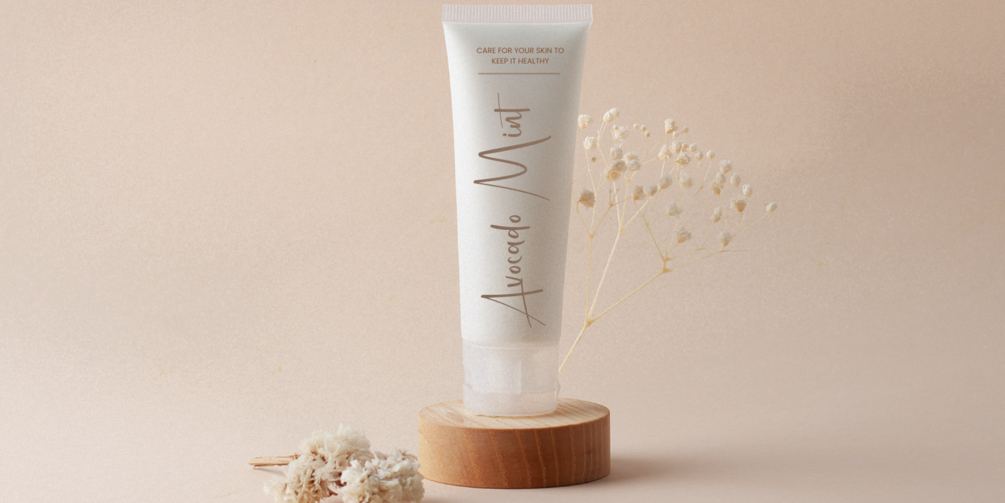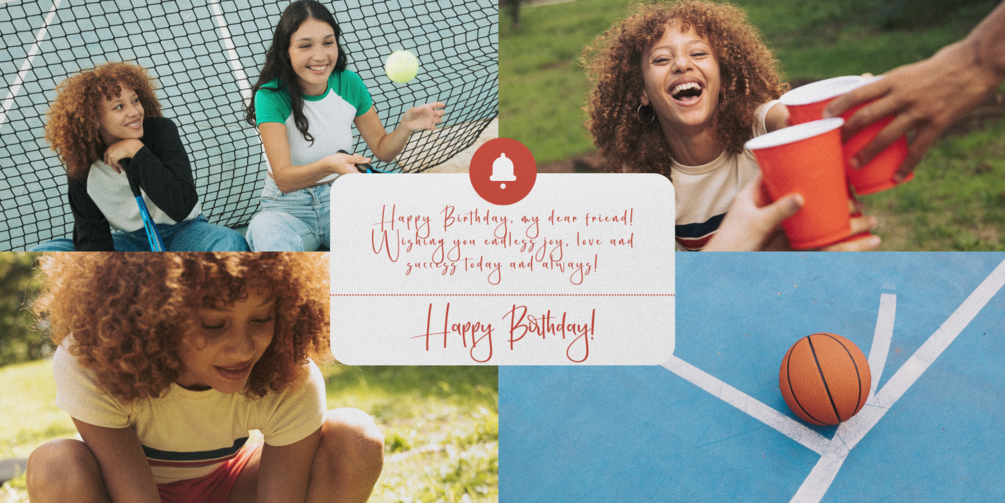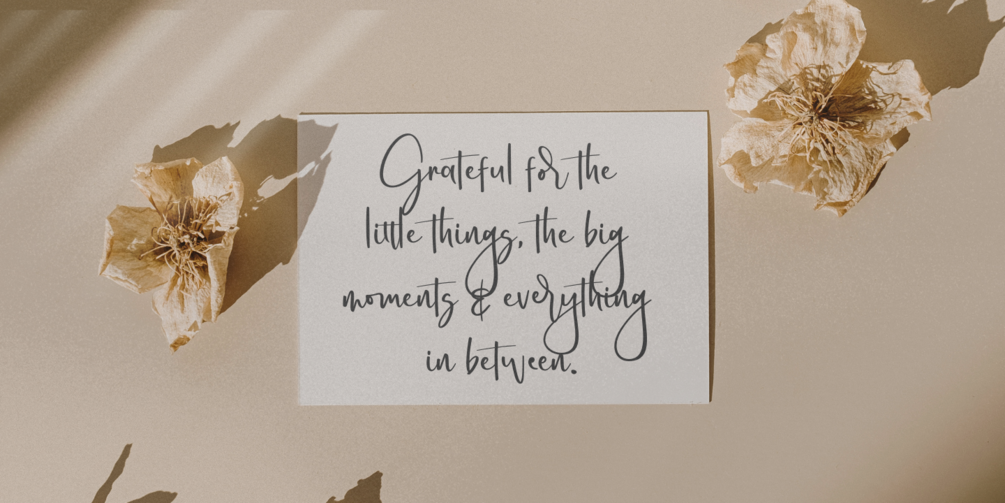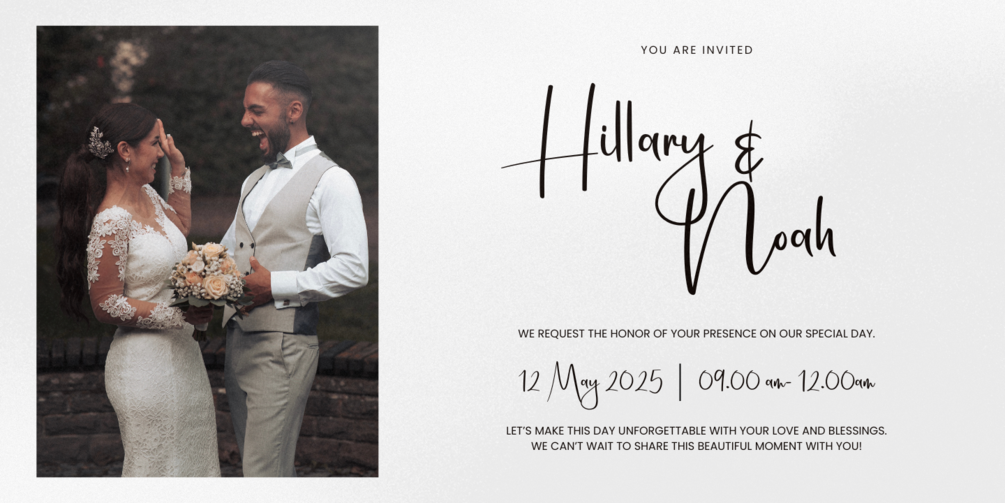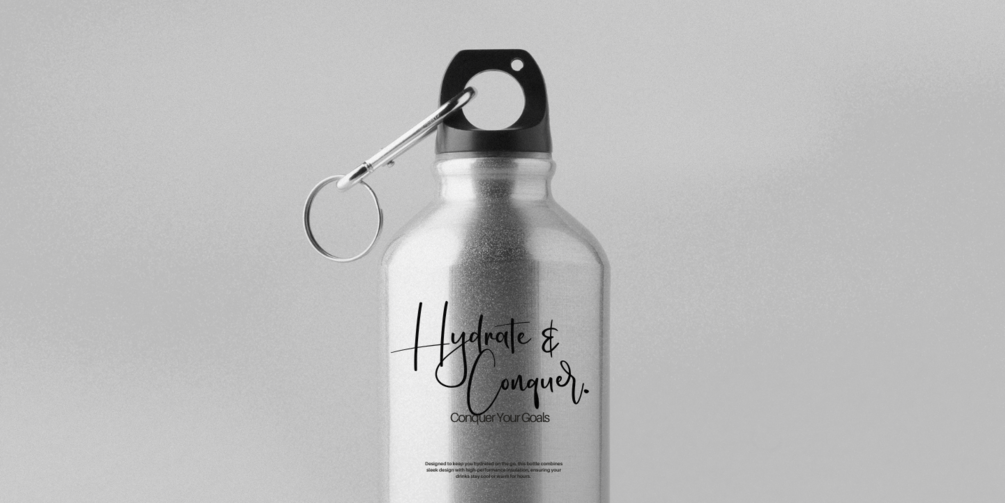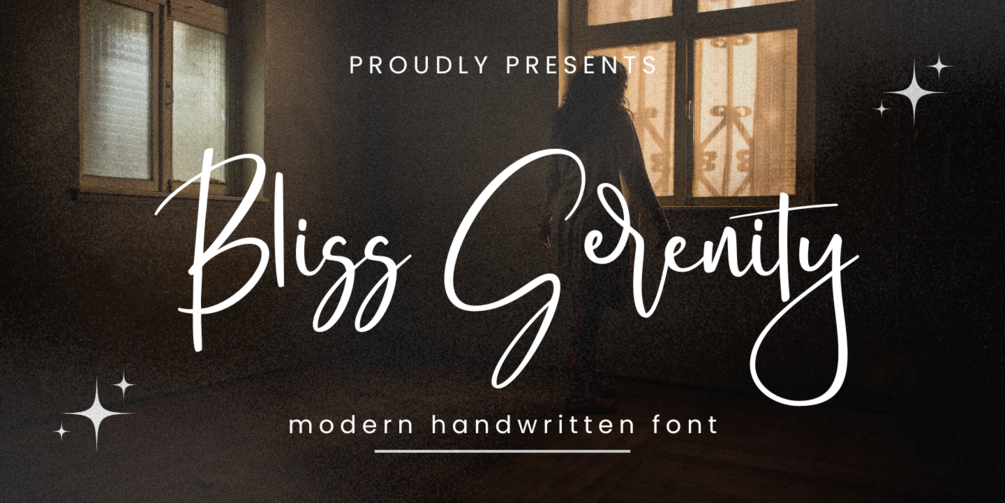
Bliss Serenity
Introducing Bliss Serenity Script – a chic, refined, and elegant handwritten font.
With its graceful, flowing curves and a subtle touch of inky elegance, Bliss Serenity Script exudes sophistication and charm. This font is designed to seamlessly blend organic, handwritten beauty with a polished and professional look, making it perfect for a wide range of creative projects.
Whether you're designing logos, branding materials, wedding stationery, or social media visuals, Bliss Serenity Script adds a refined, personal touch to your work. Its versatility makes it suitable for various applications, including advertisements, packaging, product labels, photography watermarks, invitations, and more.
Why Choose Bliss Serenity Script?
• Chic & Refined Handwritten Style – Ideal for luxury brands and sophisticated projects.
• Graceful Curves & Inky Elegance – Adds a genuine, handmade feel to any design.
• Multilingual Support – Perfect for international branding and communications.
Elevate your design projects with the elegance and authenticity of Bliss Serenity Script. Let your creativity flow with every stroke.